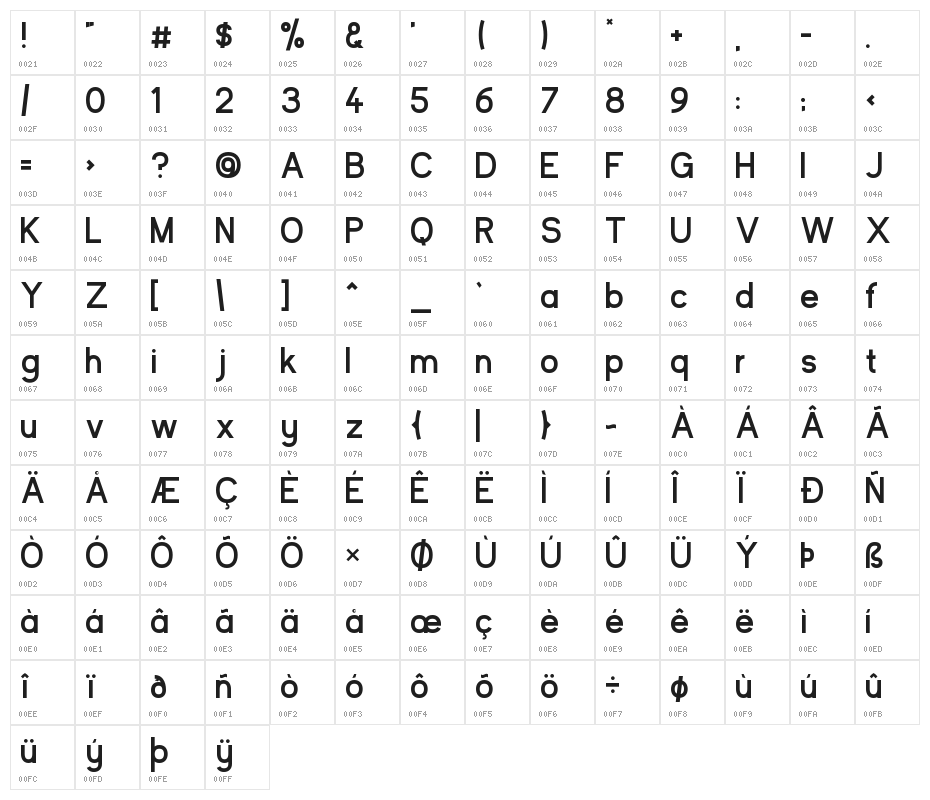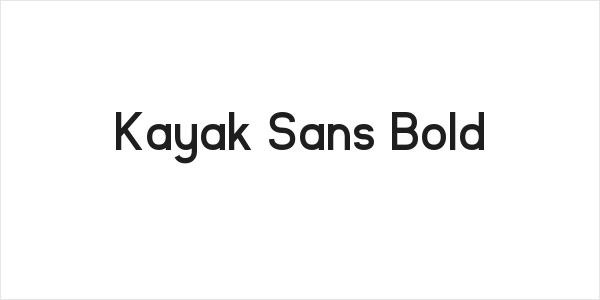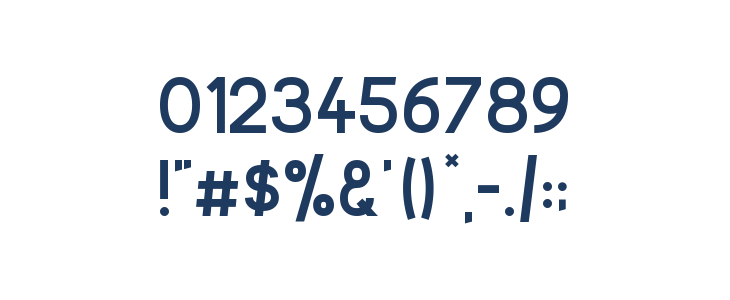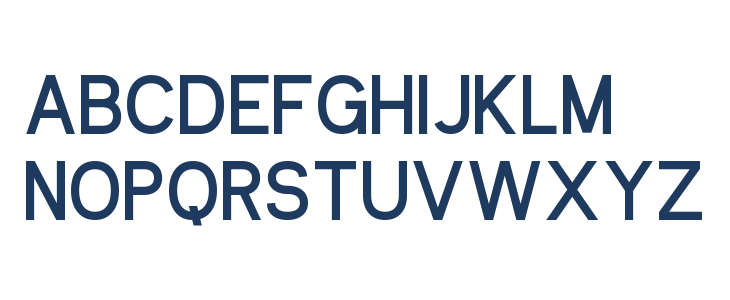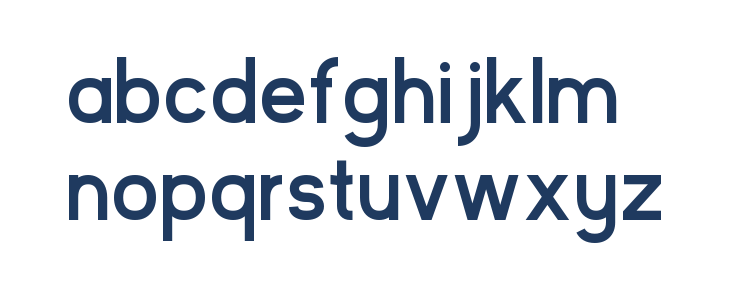
Kayak Sans Bold Font
Kayak Sans Bold Description
This font exhibits a clean and modern sans-serif style with bold, uniform strokes. The characters are well-proportioned, featuring a consistent thickness that enhances readability. The uppercase letters are tall and commanding, while the lowercase letters maintain a balanced and approachable appearance. The numerals are clear and distinct, making them easily distinguishable. Special characters are designed with the same boldness, ensuring they stand out effectively. Overall, this font is versatile, suitable for both digital and print media, offering a contemporary aesthetic that can adapt to various design needs.
| Use Case | Headlines, Logos, Advertising |
| Proposed Projects | Ideal for branding, advertising, web design, and editorial projects where clarity and modernity are key. |